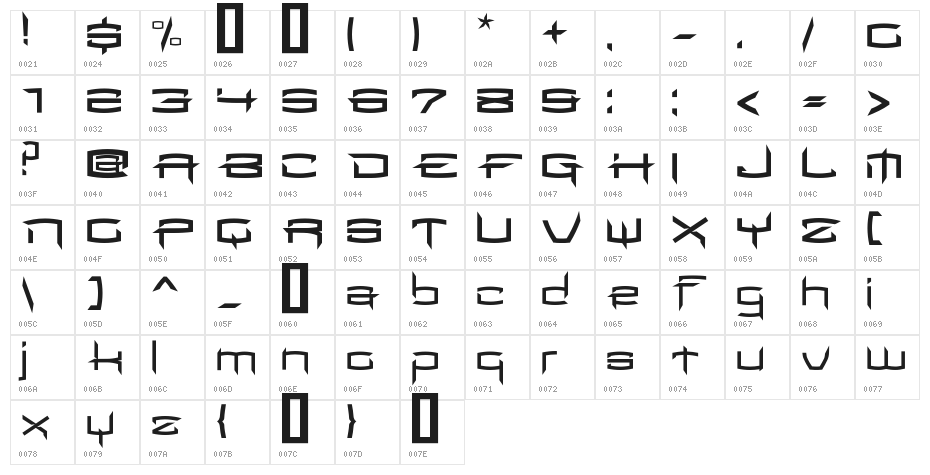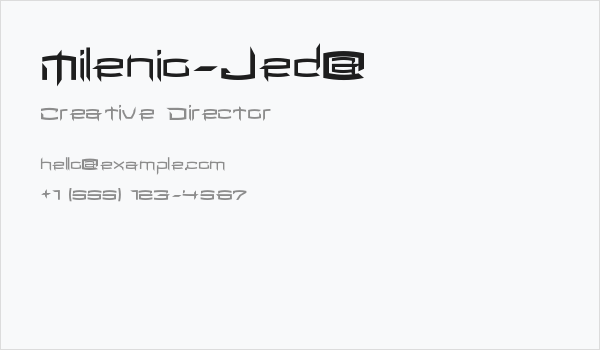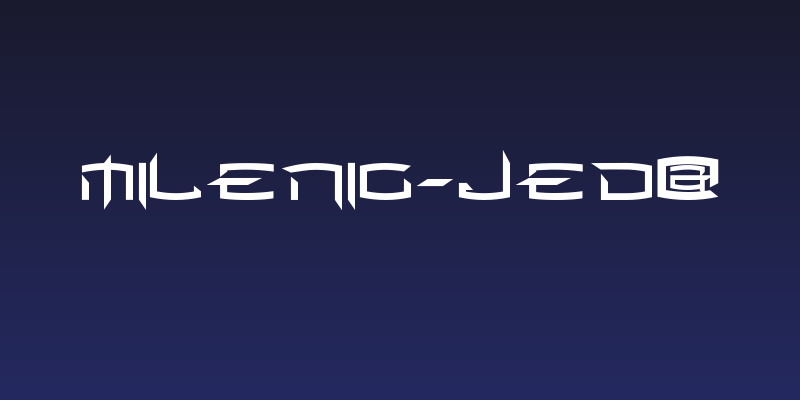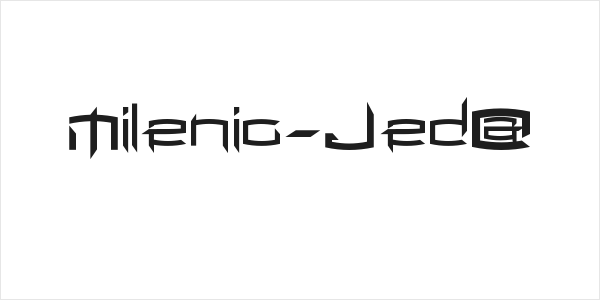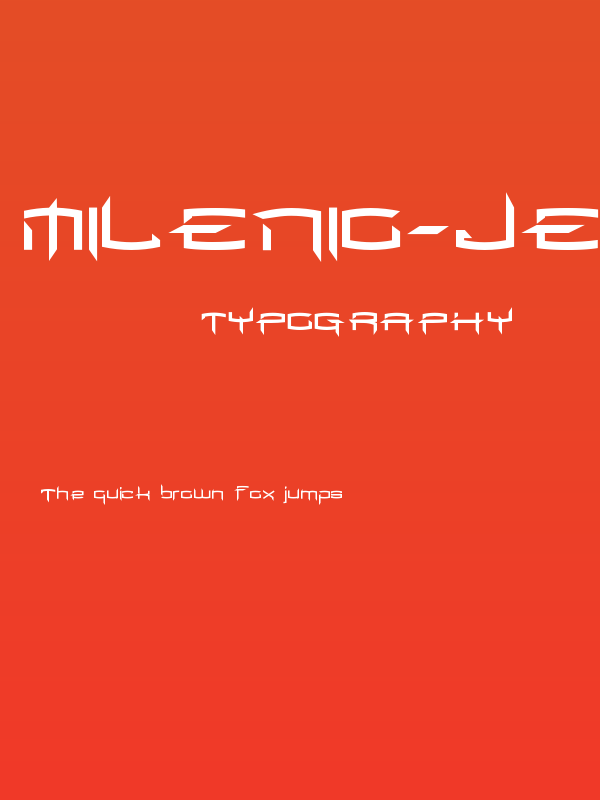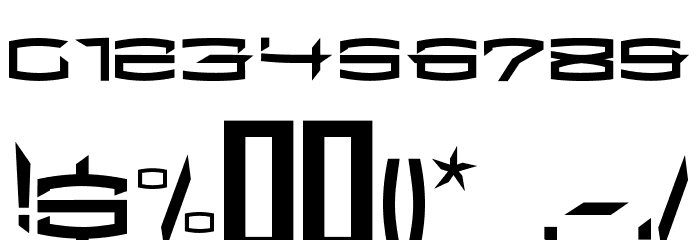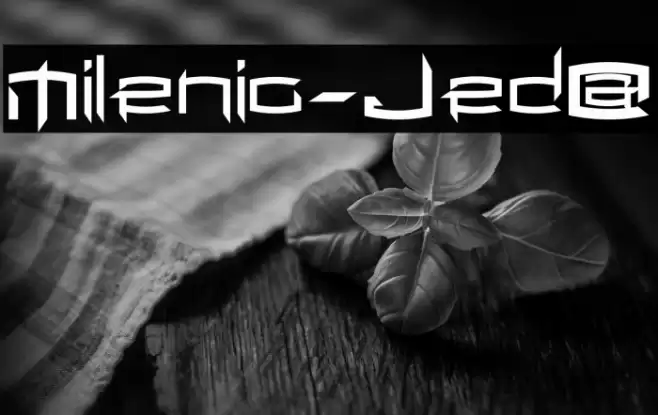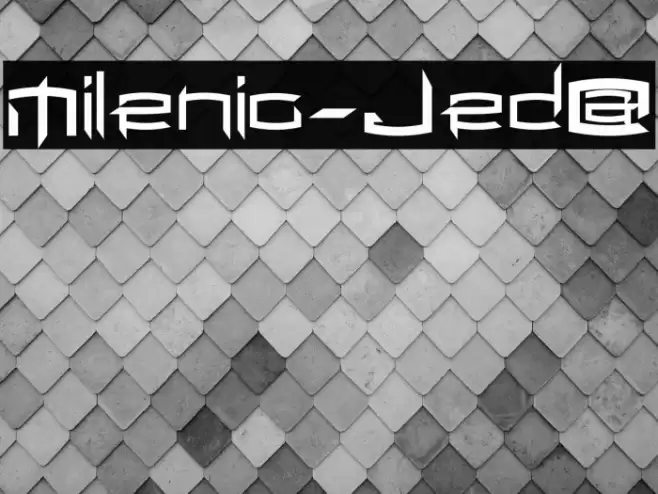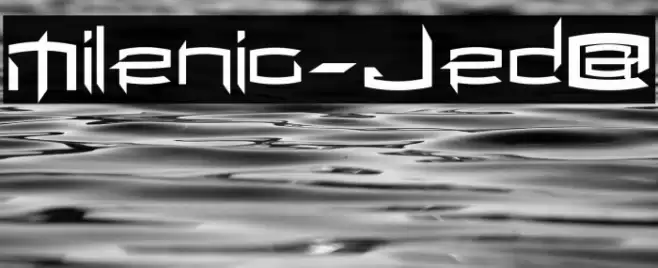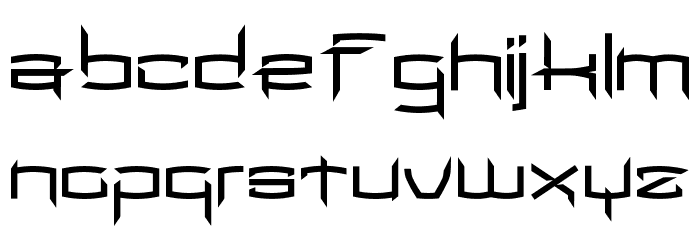
Milenio-Jed@ Font
Milenio-Jed@ Description
This font exhibits a futuristic and angular design, characterized by sharp edges and geometric forms. The uppercase letters are bold and striking, with a consistent height and width that create a uniform appearance. The lowercase letters maintain the angular theme, offering a unique twist on traditional letterforms. Numbers are similarly styled, ensuring cohesiveness across all characters. Special characters are designed with the same attention to detail, making them stand out while remaining part of the overall aesthetic. The font's distinct style is ideal for projects that require a modern and edgy look.
| Proposed Projects | Ideal for sci-fi themed designs, video game graphics, tech company logos, and modern posters. |